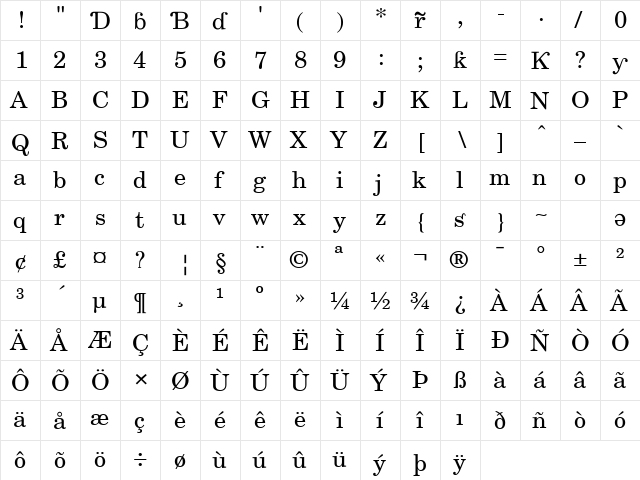
Hausa Normal
Design Context for Hausa Typeface
Hausa offers clean, dependable letterforms without strong stylistic allegiance, making it a practical choice for designers who need flexibility.